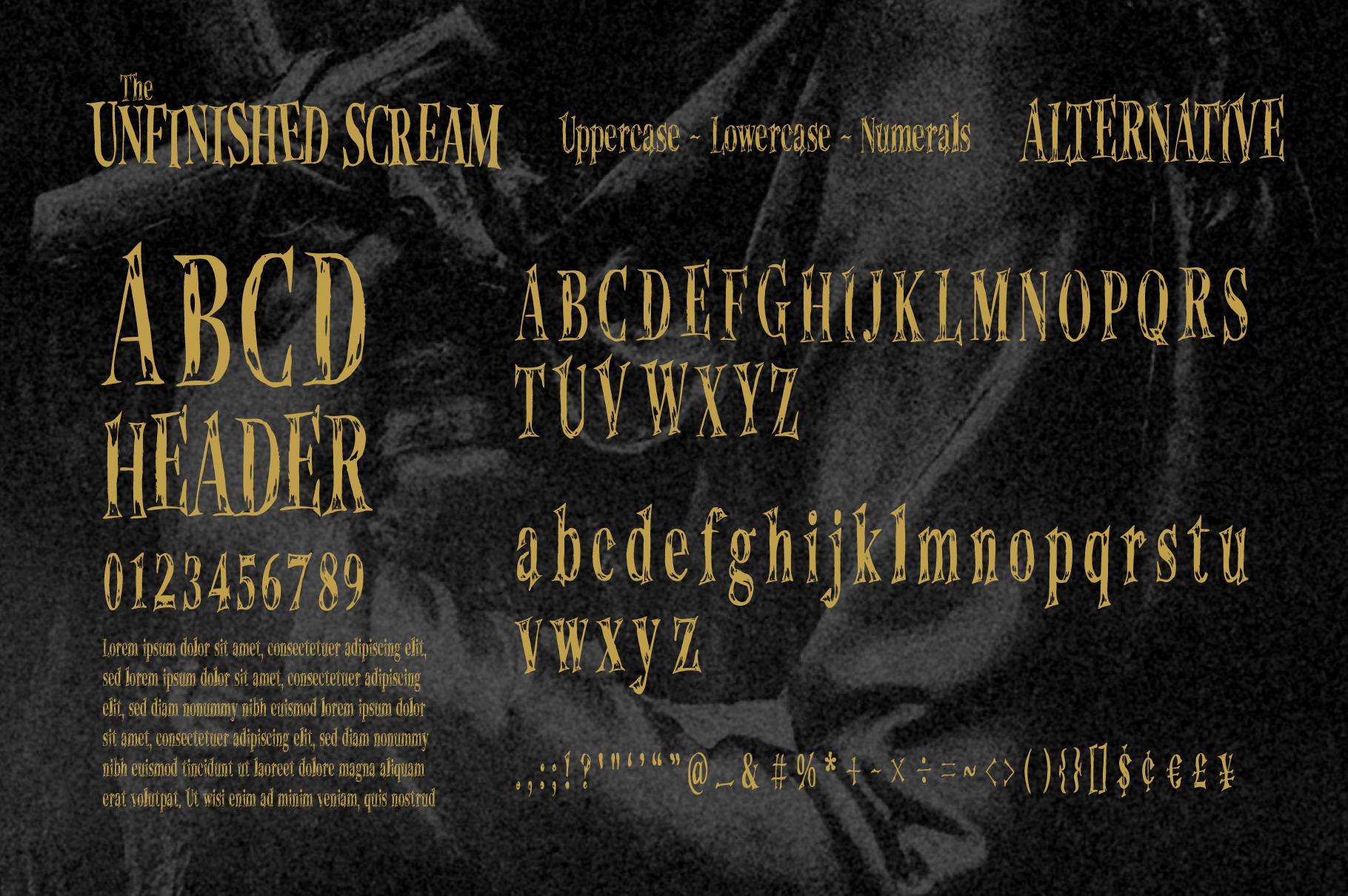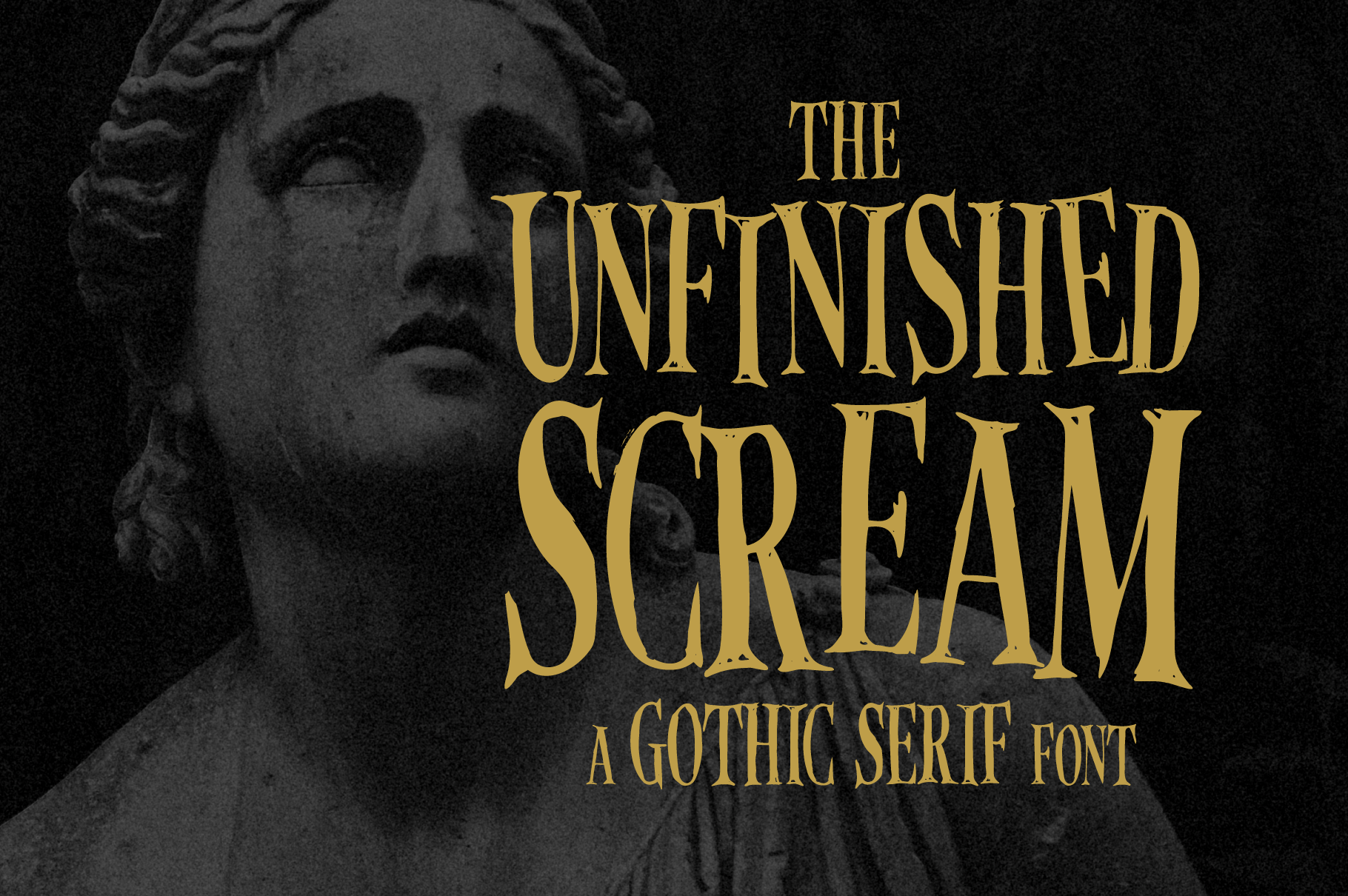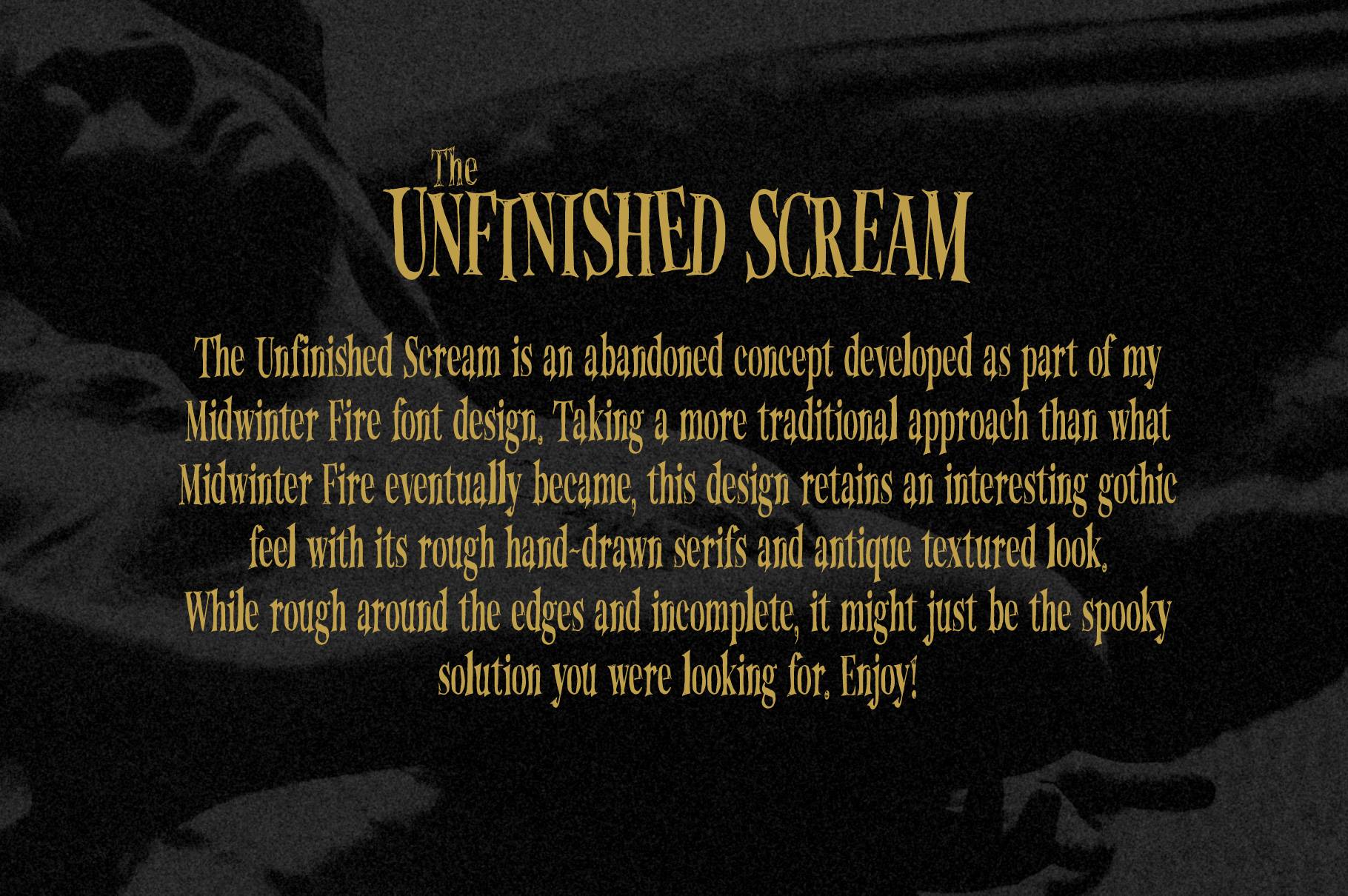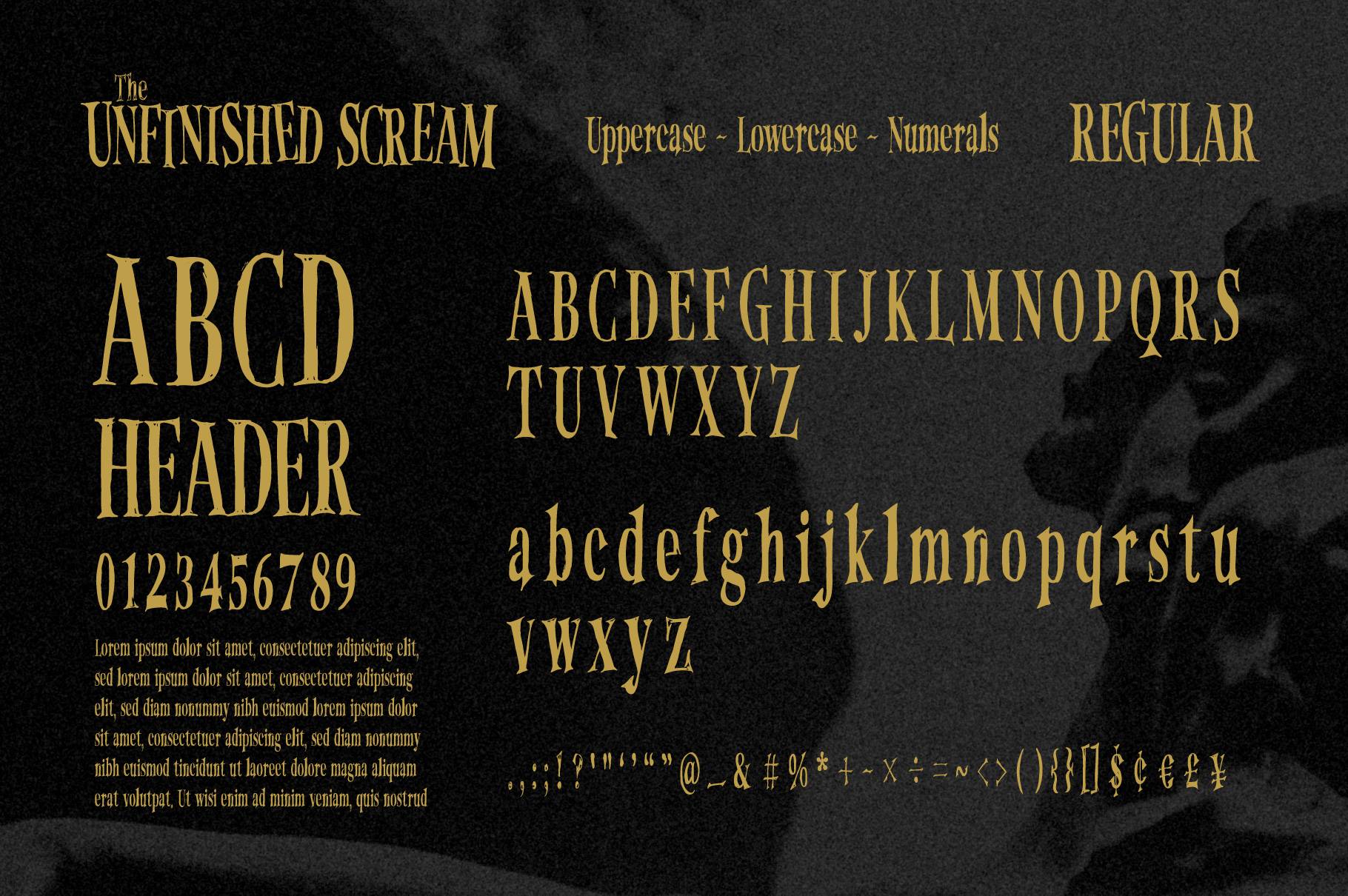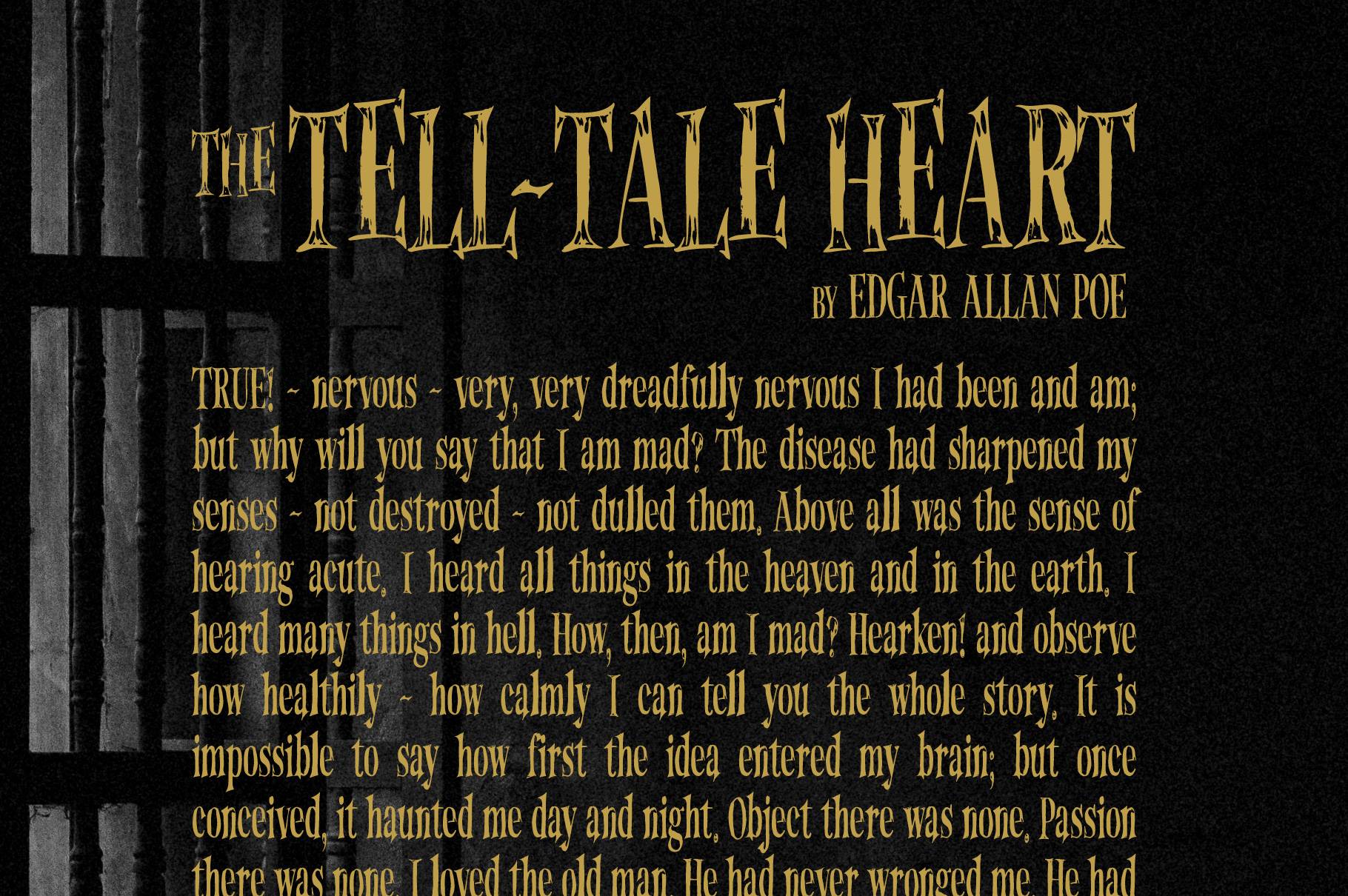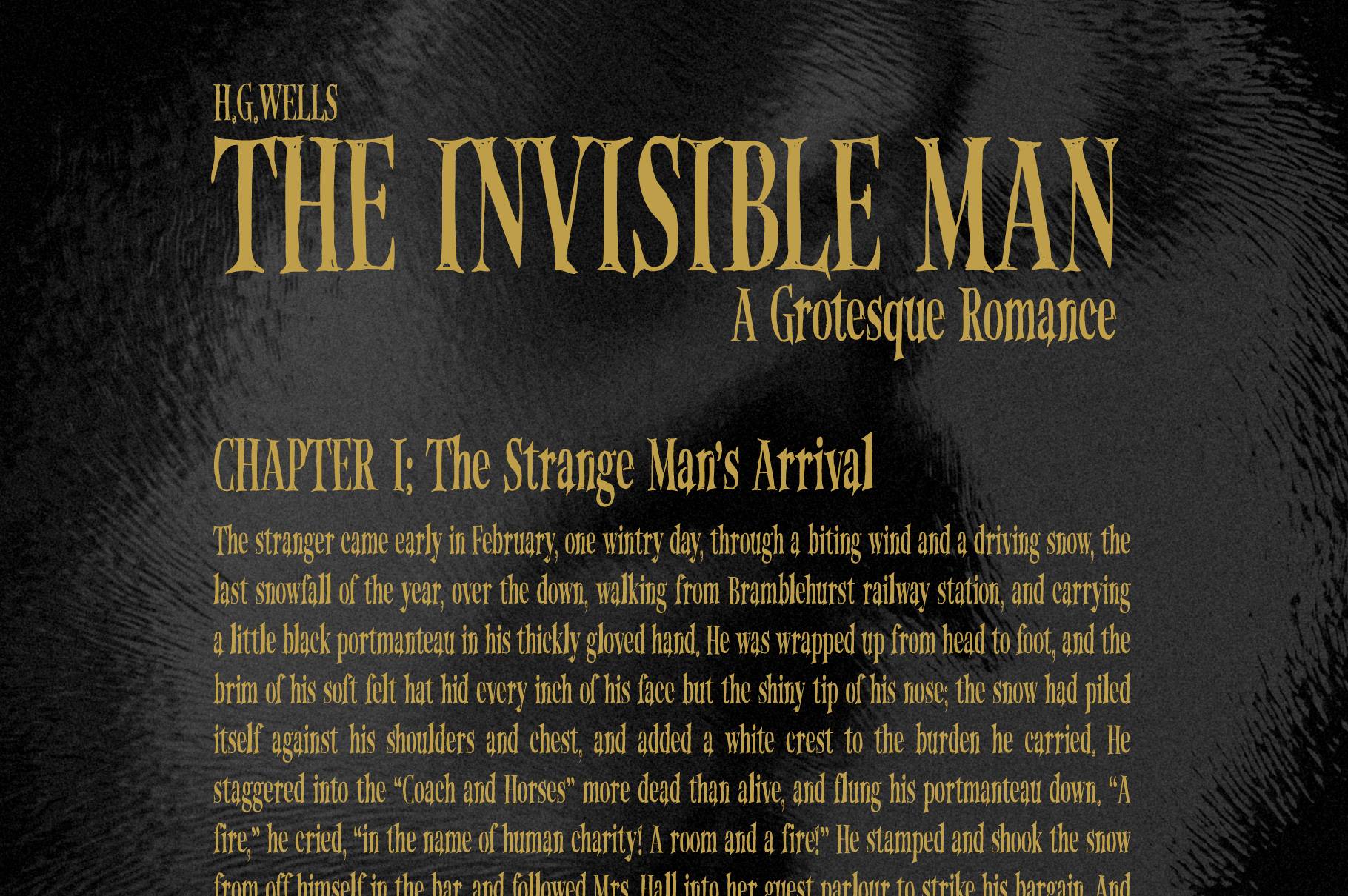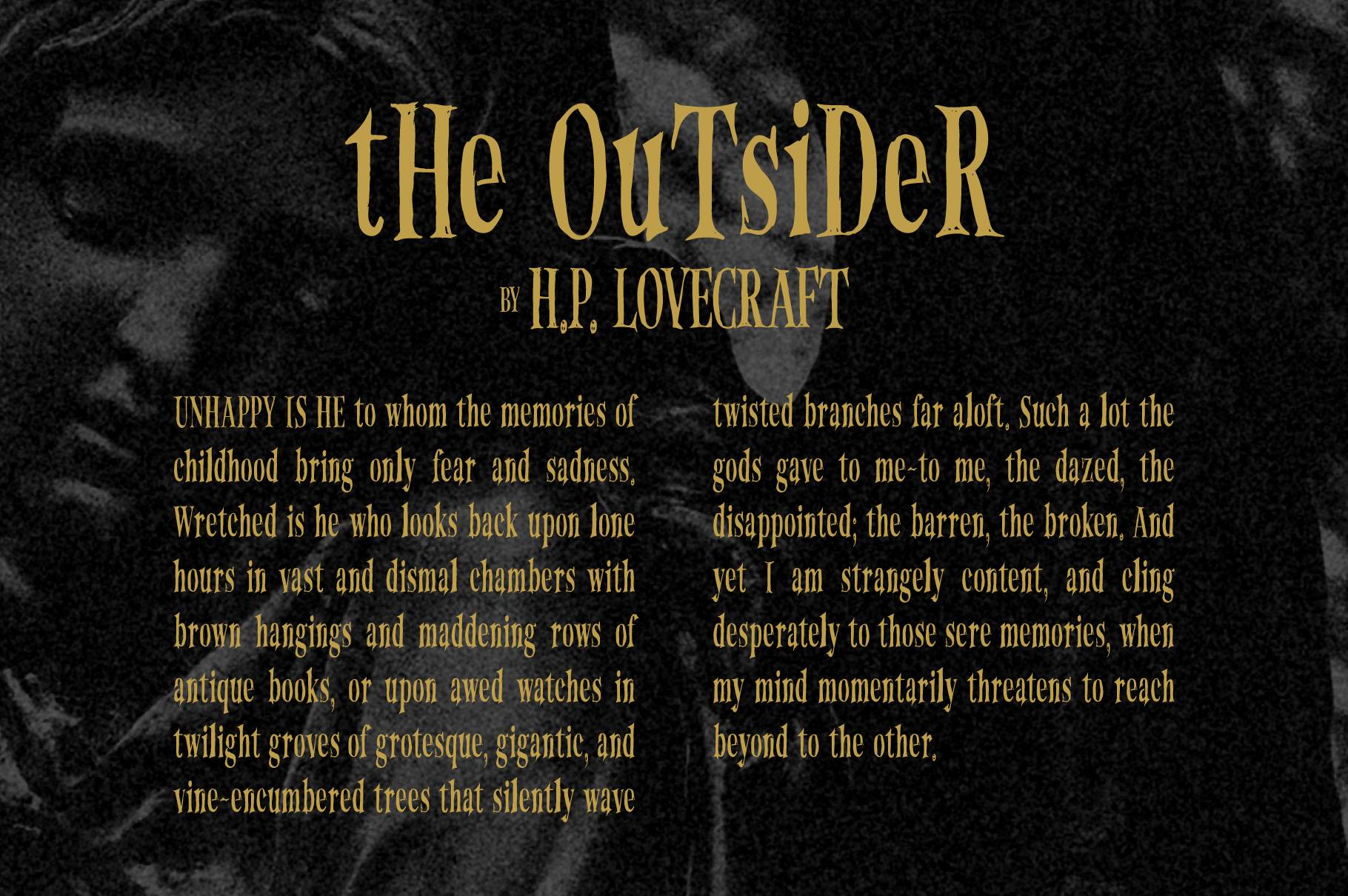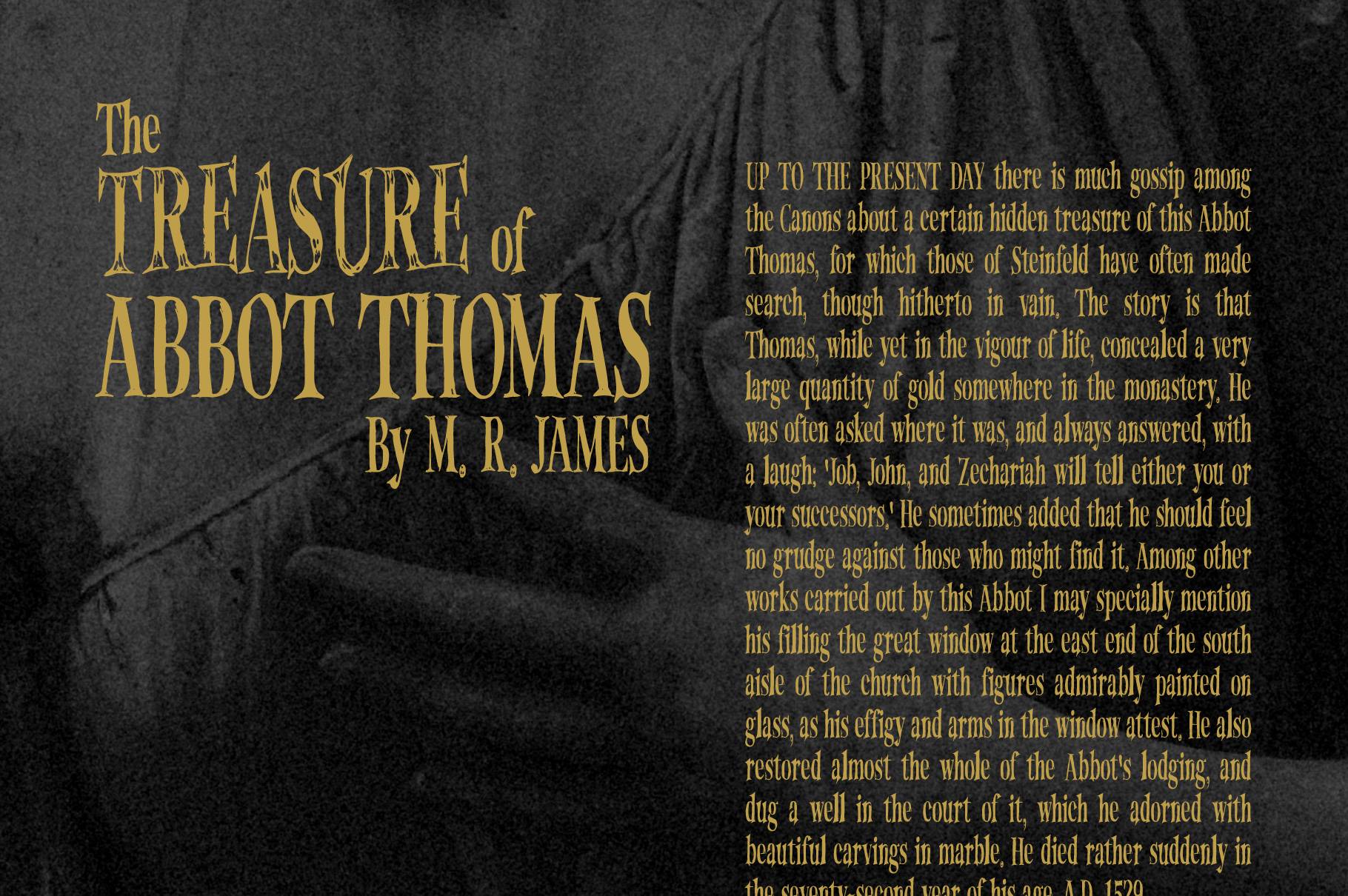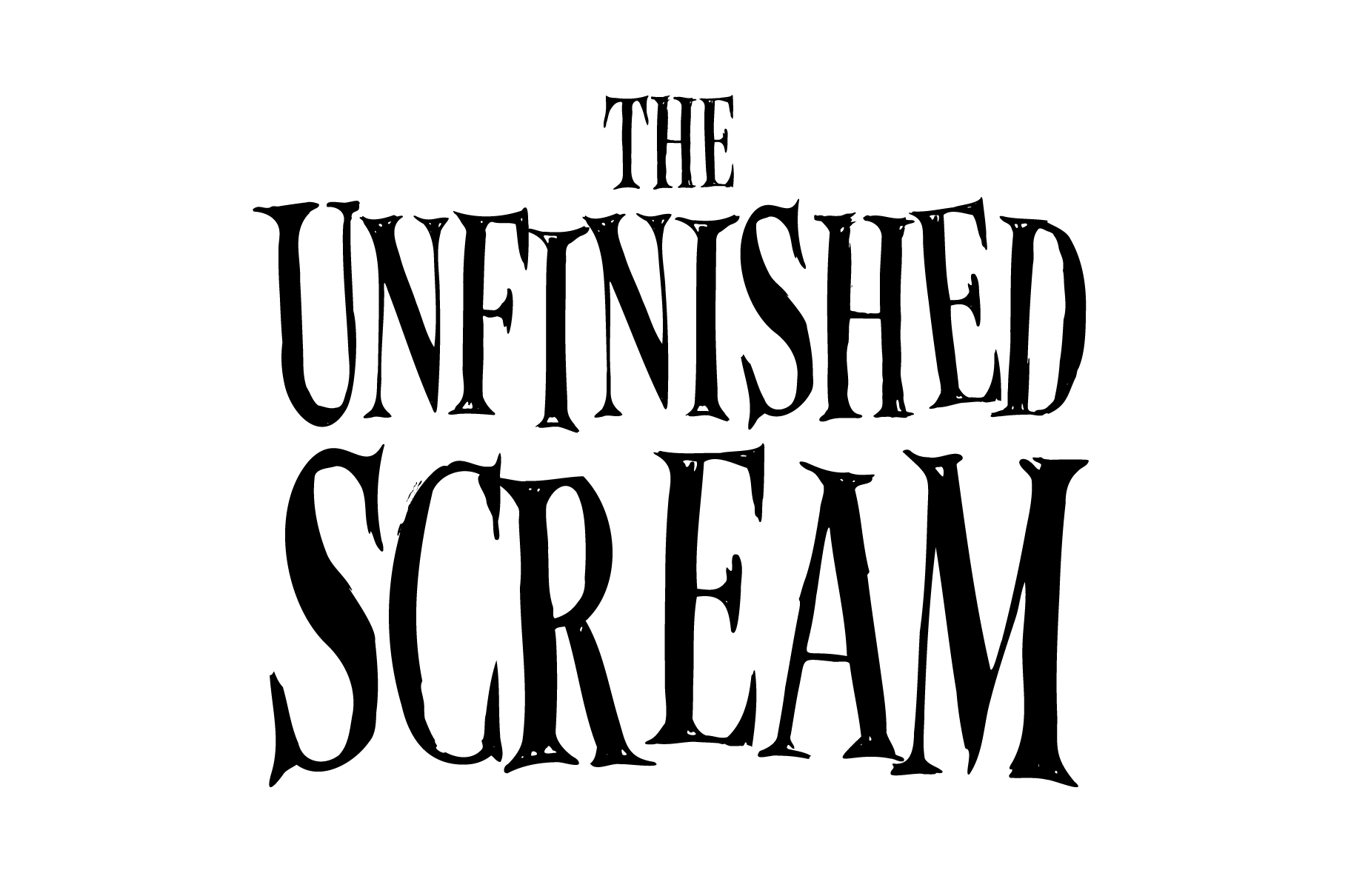
The Unfinished Scream | Textured Horror Serif Font
The Unfinished Scream is an experimental design, perfect for the Halloween Season.
Available as a experimental design, The Unfinished Scream is an abandoned concept developed as part of my Midwinter Fire font design.
Taking a more traditional approach than what Midwinter Fire eventually became, this design retains an interesting gothic feel with its roughly hand-drawn serifs and antique textured look. While rough around the edges and incomplete, it might just be the spooky solution you were looking for!
It comes with uppercase and lowercase characters (with alternatives) numbers and some punctuation and symbols.
• Unfinished Scream Regular
• Unfinished Scream Alternative
ORIGINAL PENCIL AND INK